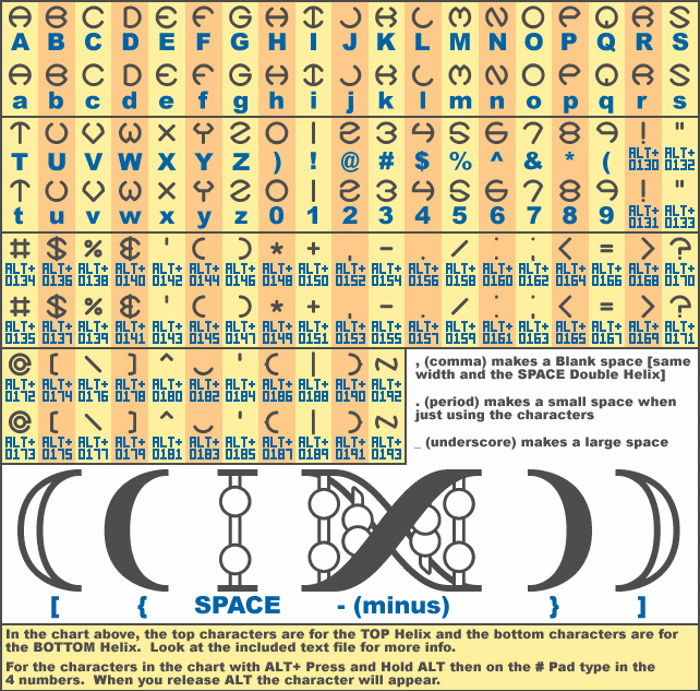
Code of Life (BRK) Font
With this font you can make DNA with lettering in the top and
bottom Helixes. I'm not sure if Helix is the correct term for the
Top and Bottom parts of DNA, (I'm not a scientist :P) but in this
text 'Help' file I'm going to call them Helix.
___
| ---------------\
( ) DOUBLE HELIX
( ) <- BOTTOM HELIX /
| ---------------/
¯¯¯
______________
- CHARACTERS -
¯¯¯¯¯¯¯¯¯¯¯¯¯¯
SPACE makes Double Helix over characters [you type in the characters
then you use SPACE to make a Double Helix. This also sets up
the next characters]
- (minus) makes Helix Twist
[ and ] makes a 'hollow' end cap
{ and } makes a 'solid' end cap
, (comma) makes a Blank space, same width and the SPACE Double Helix
. (period) makes a small space when just using the characters
_ (underscore) makes a large space